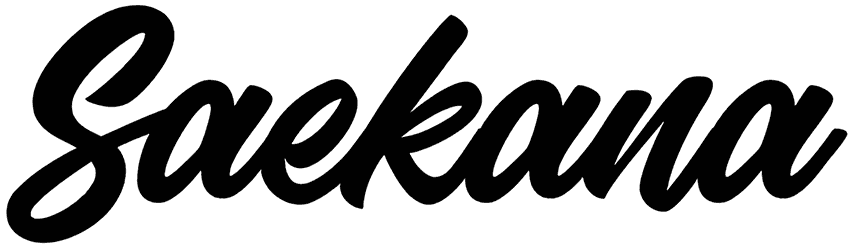
Saekana Font
Saekana is a magical script font that is masterfully designed to become your assistant for bringing your creative ideas, such as posters, flyers, brochures, invitations, and product labels, to the real world. Aside from eye-catching style, curved and elongated characters, this font comes in three different styles, thus widening your selection range.